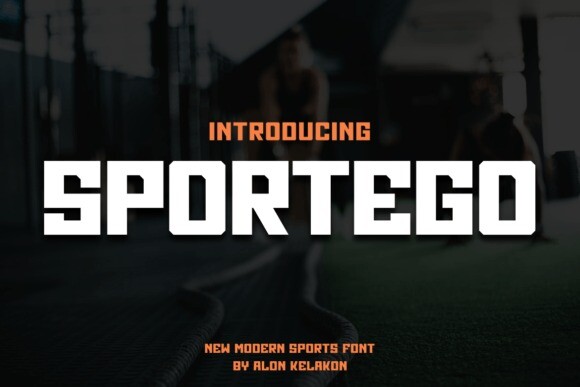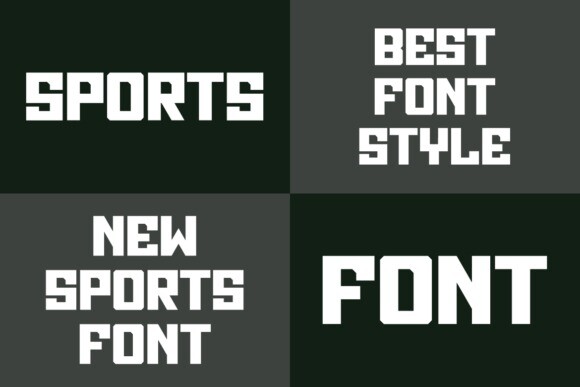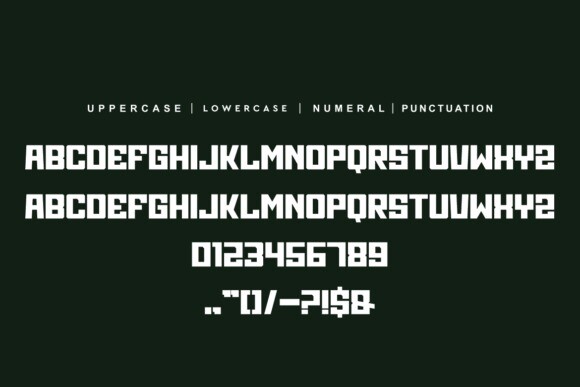
Sportego Font
Sportego is a cool and trendy display font. Masterfully designed to become a true favorite, this font has the potential to bring each of your creative ideas to the highest level!